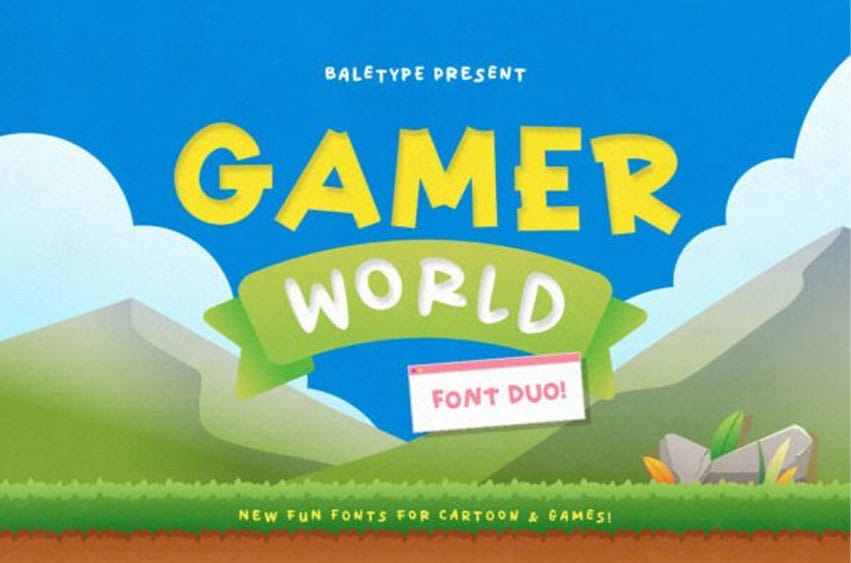
Gamer World Font is a fun and playful font duo! It includes two unique styles: a sharp sans-serif font and a rounded handwritten font. You can use each font individually or combine them for a creative touch.
This versatile font duo is suitable for apps, games, quotes, and even branding. Additionally, it supports multiple languages!